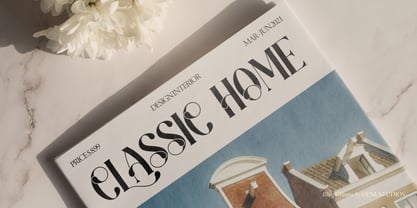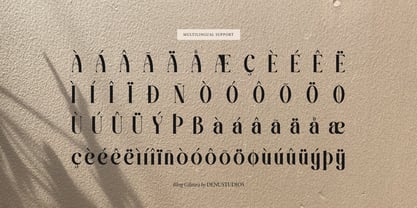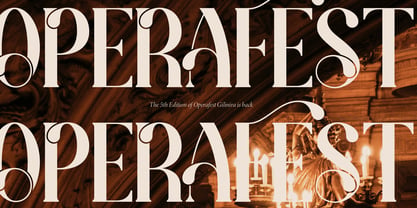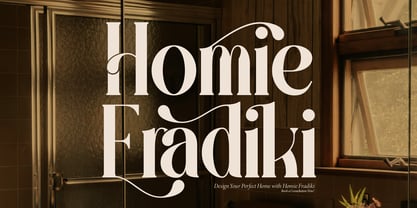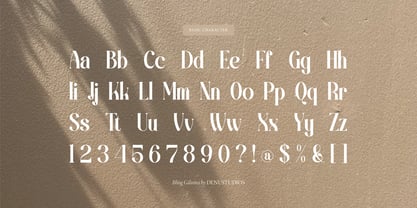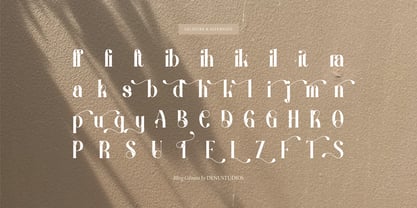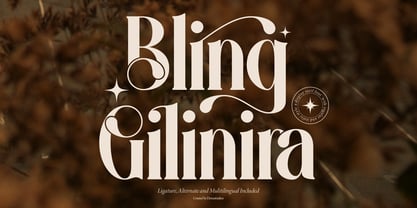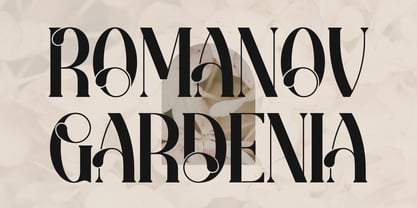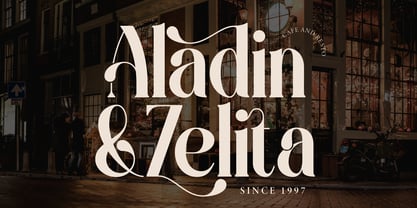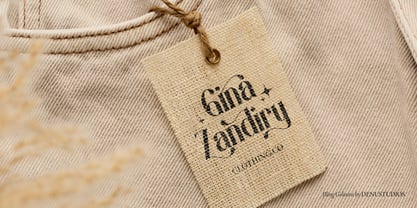
Bling Gilinira
von Denustudio
Die Schriftfamilie Bling Gilinira wurde von Dede Nugraha entworfen und von Denustudio veröffentlicht. Bling Gilinira enthält 2 Stile und Familienpaketoptionen. Mehr über diese Familie
Bling Gilinira | Display Serif Font, from Denustudios, suitable for any projects such as: logos, branding projects, homeware designs, product packaging, mugs, quotes, posters, shopping bags, t-shirts, book covers, name card, invitation cards, greeting cards, label, photography, watermark, special events, and all your other lovely projects that need a Display Serif Font taste.
• Regular and Italic
• Alternate and Ligature
Designer: Dede Nugraha
Foundry: Denustudio